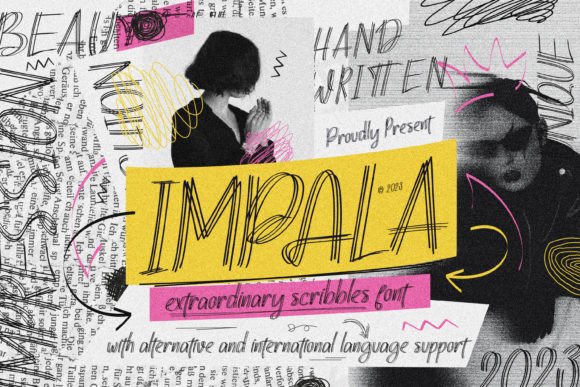
Introducing impala: Your Go-To Font for Festive Cheer and Enchanting Designs!
In a world of mundane text, impala bursts forth as an enchanting handwritten font, ready to transform your designs into magical realms. With its playful curves and charming imperfections, impala dances across your creations like a playful pixie, adding a touch of whimsy and cheer to every word.
Indulge your senses in the delightful dance of impala, a font that whispers stories of Christmas cheer and festive wonder. Picture your designs adorned with impala's enchanting script, each letter a work of art, capturing the essence of the season's magic.
Create awe-inspiring logos that radiate warmth and charm, drawing customers in like moths to a flame. Design banners that spread holiday cheer, their words twinkling like stars against the backdrop of your creative vision. Enchant book covers with impala's charming touch, transporting readers into a world of wonder and enchantment.
Unleash your creativity and let impala's magic work its wonders across tote bags, posters, invitations, and more. Whether you're a seasoned designer or just starting your creative journey, impala will elevate your designs to new heights, making them stand out from the crowd.
Experience the magic of impala today and let your designs dance with joy, enchantment, and festive spirit!